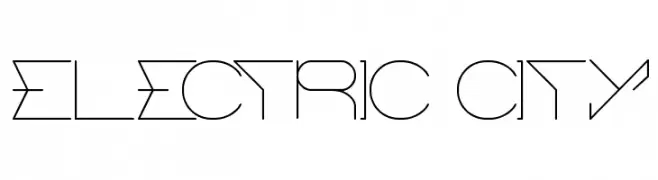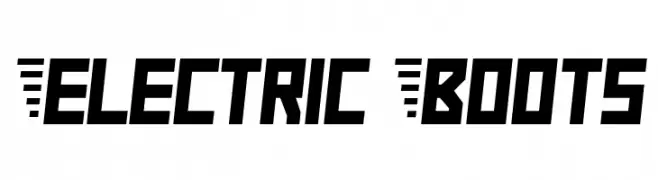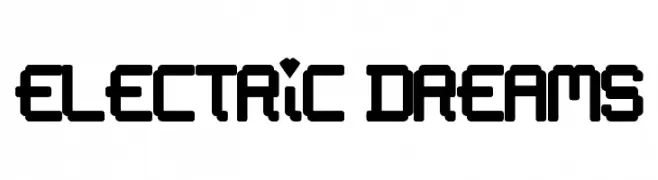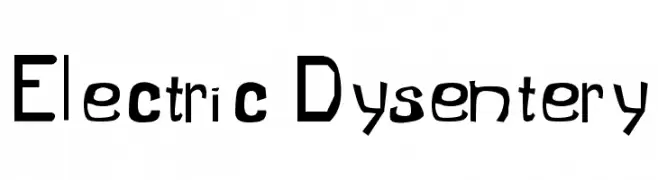
• Electric Boots
A bold, geometric font with a futuristic and digital-inspired design.
• Electric Boots
A bold, geometric font with a futuristic, industrial style.
• Electric Butterflies
A bold, geometric font with a futuristic and modern aesthetic.
• ELECTRIC CITY
A decorative, geometric font with a futuristic, technological style.
• ELECTRIC CITY
A futuristic and geometric font with abstract elements and a modern feel.
• Electric Dreams
A bold, geometric font with a futuristic, digital aesthetic.
• Electric Dysentery
• electric feel
• Electric Guitar Icons
• Electric Hermes